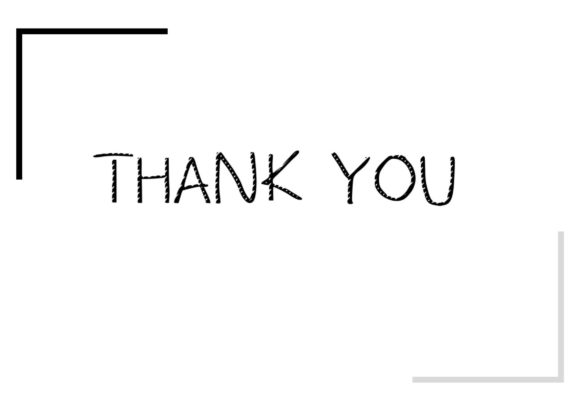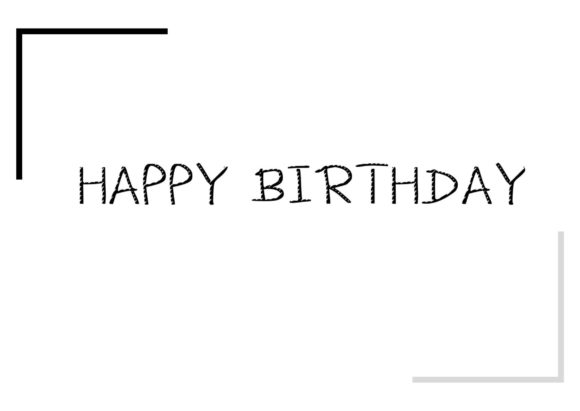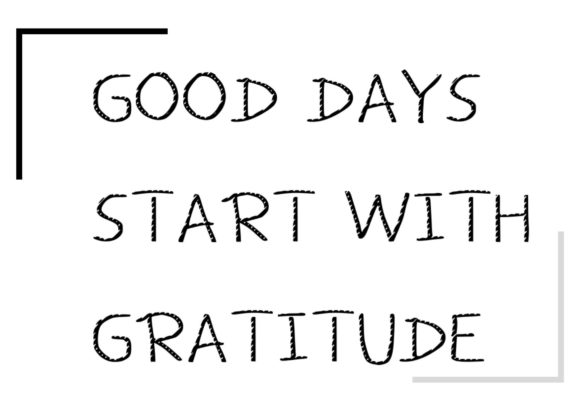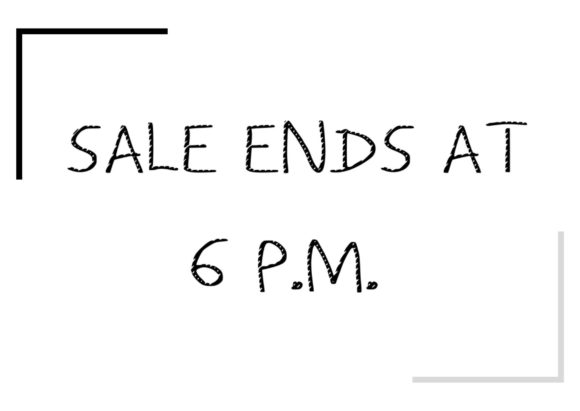
Introducing Dash Lines Font: Add a Touch of Whimsy to Your Designs
Are you tired of using the same old fonts in your designs? Do you want to add a touch of magic and whimsy to your projects? Look no further than Dash Lines Font, a fun and brushed display font that’s sure to transport your designs to a world of wonder.
A Modern yet Whimsical Style
Dash Lines Font boasts a modern yet whimsical style that’s perfect for designers and crafters who want to add a dash of personality to their work. The font’s unique blend of clean lines and playful brushstrokes gives it a distinctive look that’s both eye-catching and engaging.
Whether you’re working on a branding project, a craft tutorial, or a social media graphic, Dash Lines Font is the perfect choice. Its versatility and charm make it suitable for a wide range of applications, from:
- Craft tutorials and patterns
- Invitations and party decorations
- Stationery and gift tags
What Sets Dash Lines Font Apart
So, what makes Dash Lines Font so special? Here are just a few features that set it apart:
- Unique brushstrokes: The font’s brushstrokes are carefully crafted to give it a playful, hand-painted feel.
- Modern and clean lines: The font’s clean lines and simple shapes ensure that it remains modern and easy to read.
- Whimsical charm: The font’s whimsical style is sure to add a touch of personality to your designs.
Tips for Using Dash Lines Font
Here are a few tips for getting the most out of Dash Lines Font:
- Use it as a display font: Dash Lines Font is perfect for headlines, titles, and other display text.
- Experiment with colors: The font’s playful style lends itself well to bright, bold colors.
- Pair it with a simple font: For body text, pair Dash Lines Font with a simple, easy-to-read font to create a striking contrast.
Get Ready to Add Some Magic to Your Designs
In conclusion, Dash Lines Font is a fun and versatile font that’s perfect for designers and crafters who want to add a touch of whimsy to their work. Its modern yet whimsical style, unique brushstrokes, and clean lines make it a standout choice for a wide range of projects. So why not give it a try and see the magic for yourself?